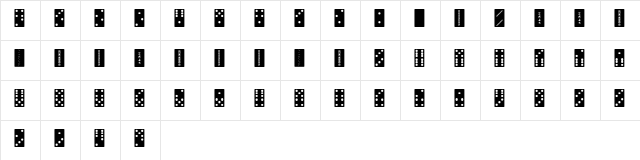
FE Dominoes Regular
| Designer | Samuel Marcius |
Design Context for FE Dominoes Typeface
FE Dominoes is a composed and adaptable typeface that performs quietly and consistently across a wide range of design contexts.